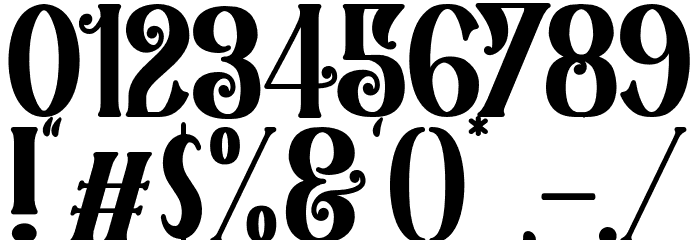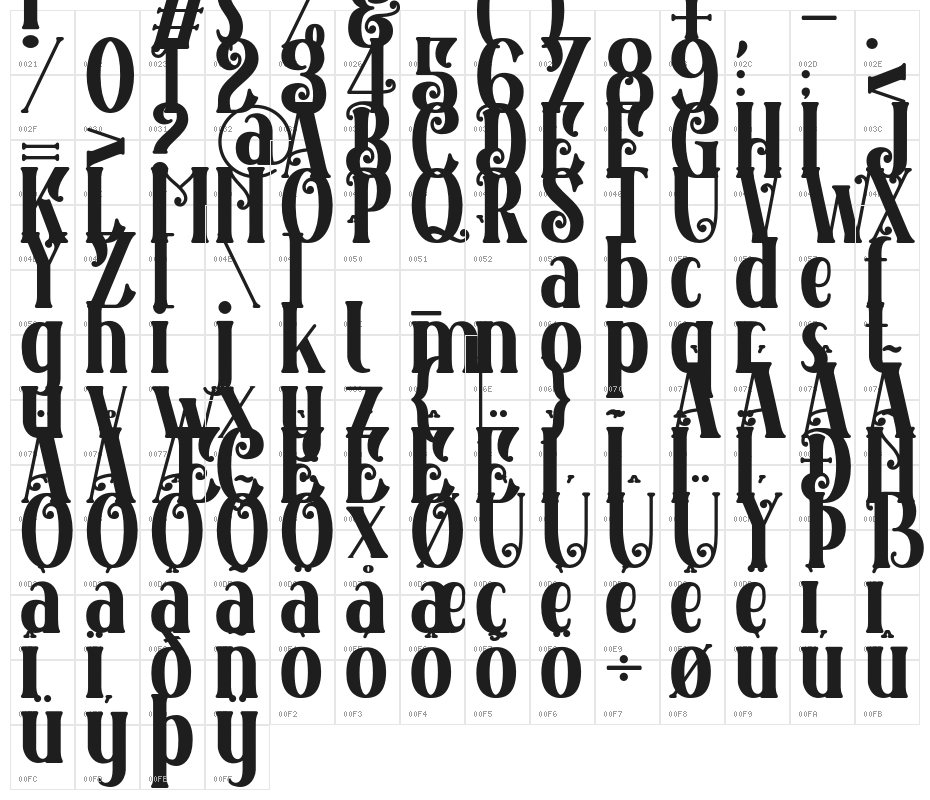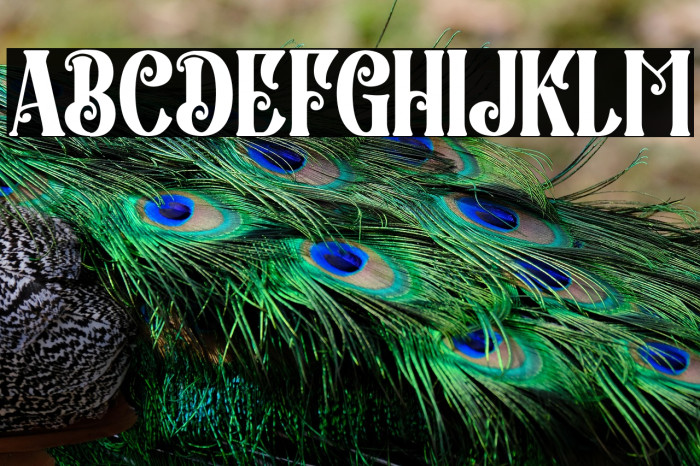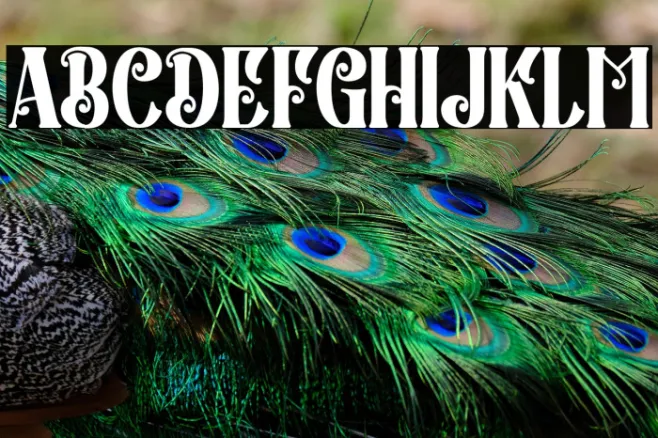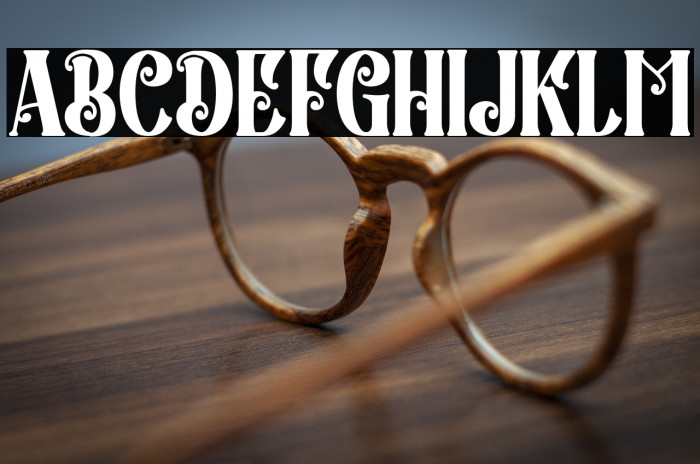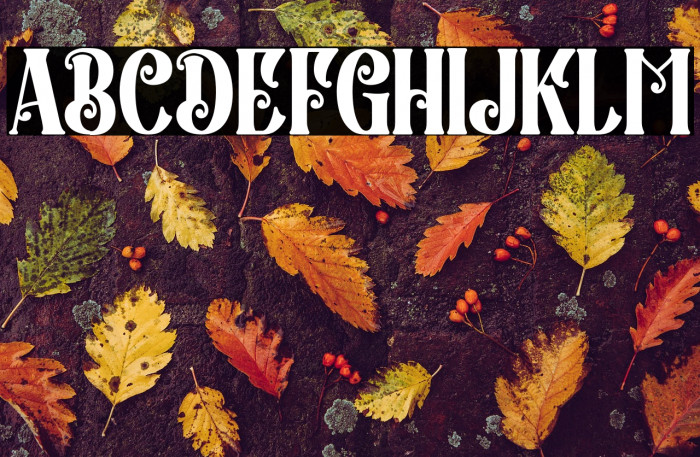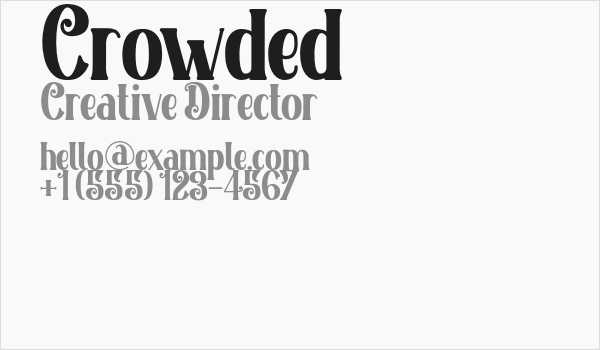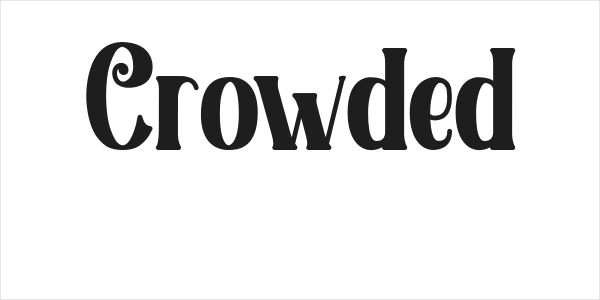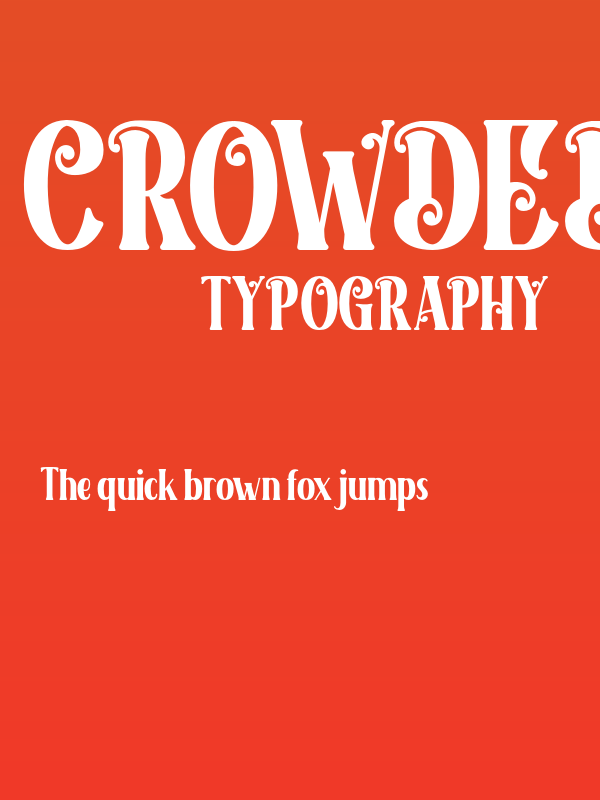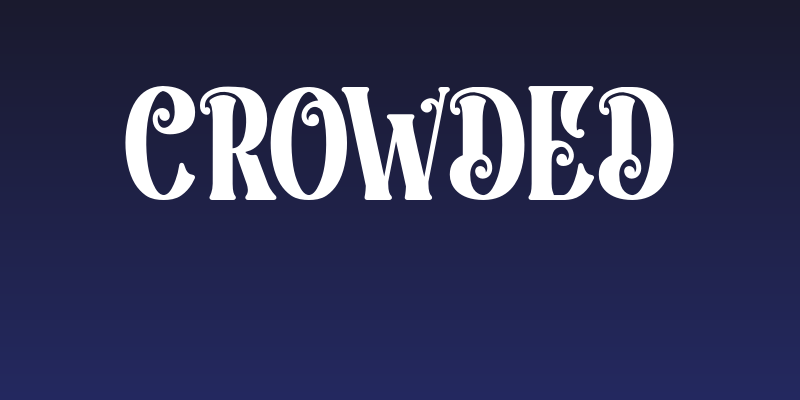
Crowded Font
Crowded Description
This font features a bold and decorative style with intricate swirls and flourishes that add a touch of elegance and whimsy. The uppercase letters are particularly ornate, with unique embellishments that make each character stand out. The lowercase letters maintain a more straightforward design but still carry the boldness of the overall typeface. Numbers and special characters are consistent with the decorative theme, making them suitable for creative and artistic projects. The font's high contrast between thick and thin strokes enhances its visual impact, making it ideal for attention-grabbing headlines and titles.